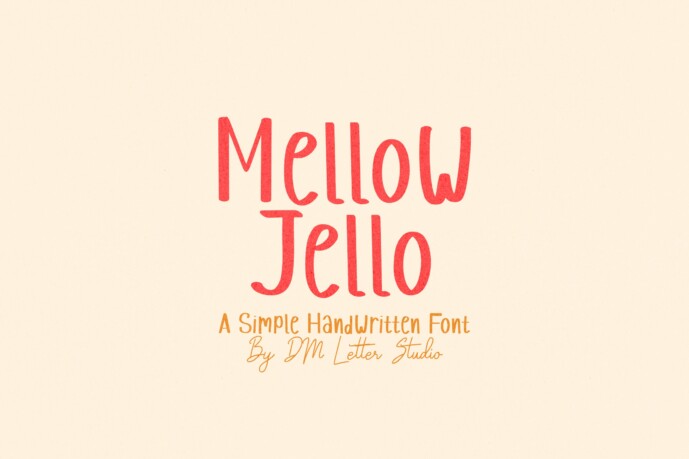
Mellow Jello Font
Designer: dmletter31
Introducing Mellow Jello Font— a versatile typeface emanating warmth, liveliness and a joyful aura. This soft, bouncy font with its jelly-like curves and rounded edges oozes charm, making it the go-to font for projects that call for a playful touch.
Perfectly in tune with child-themed designs, jovial logos, festive invitations, lively cartoons, and bright branding initiatives, the Mellow Jello Font infuses a bubbly enthusiasm into your work that is sure to captivate. A true standout whether it’s for digital or print mediums, Mellow Jello ensures your designs dance with joy and sizzle with an upbeat personality too irresistible to overlook.